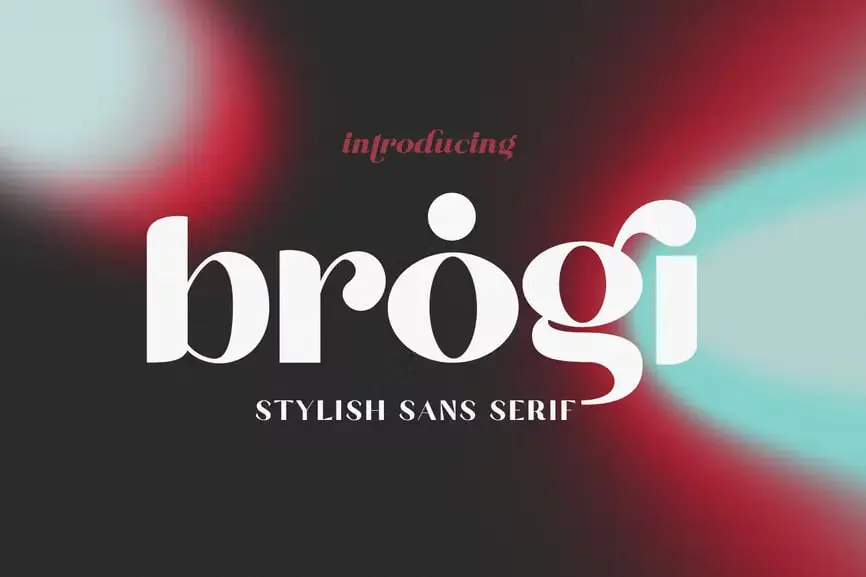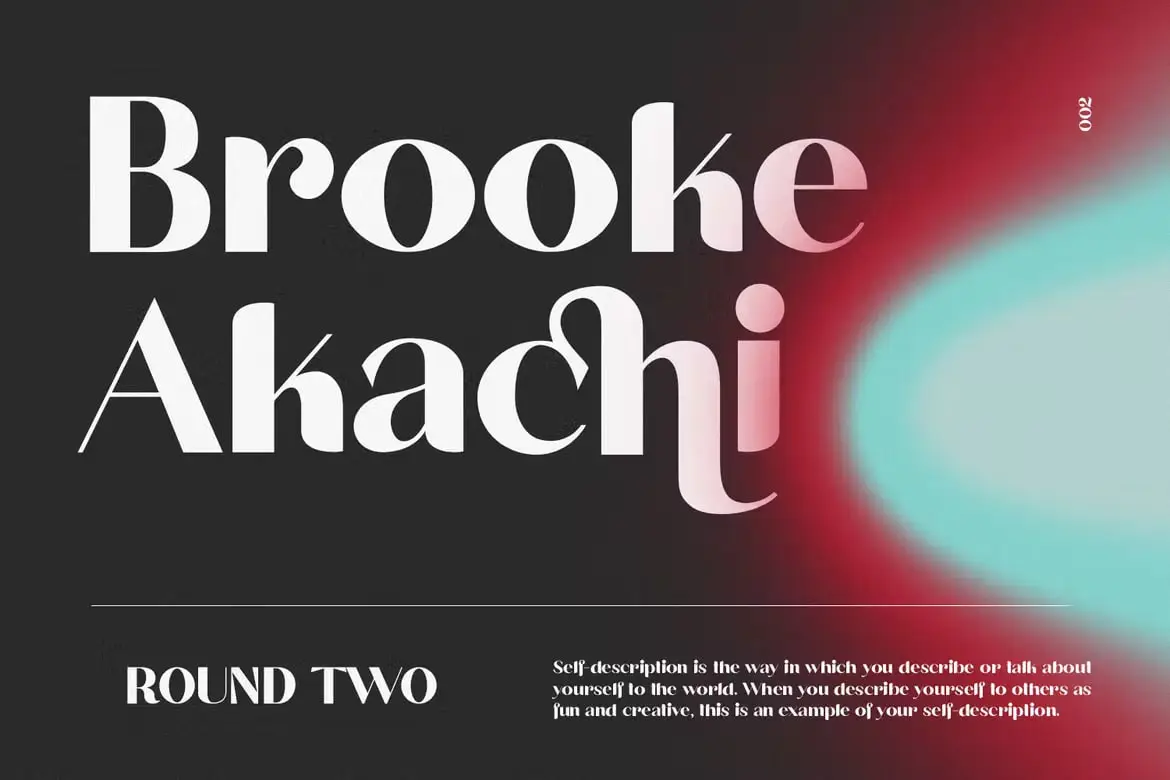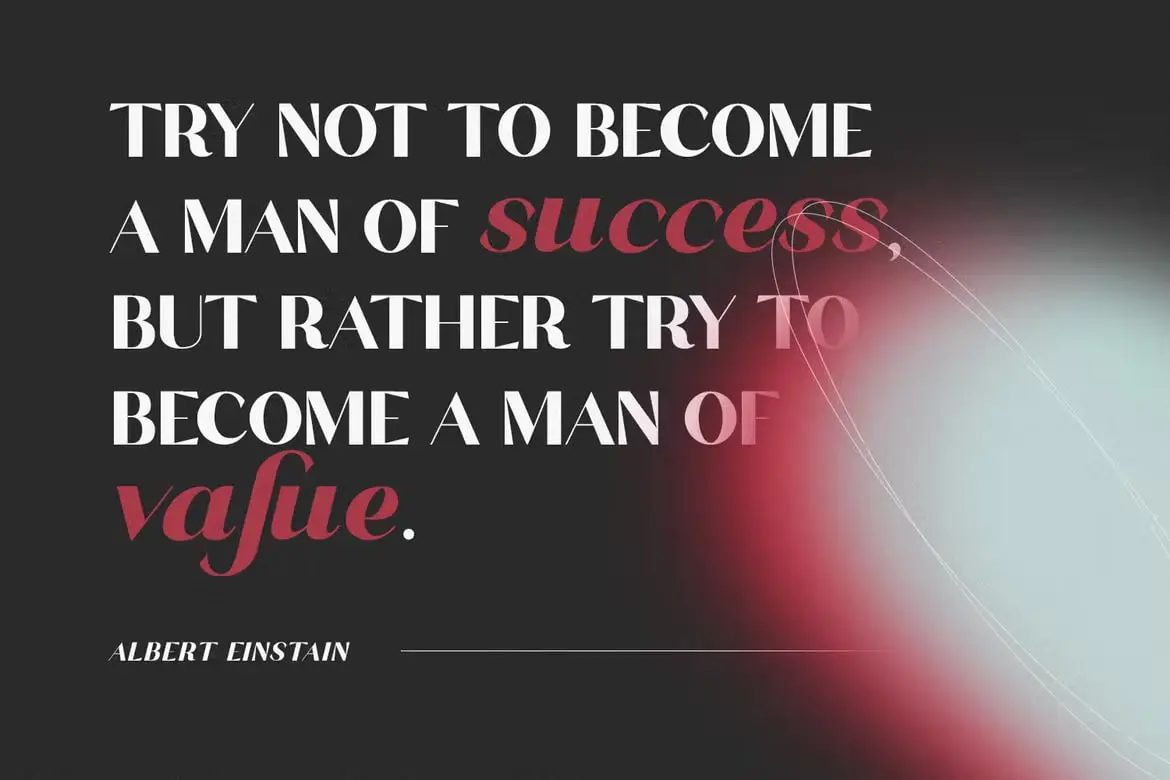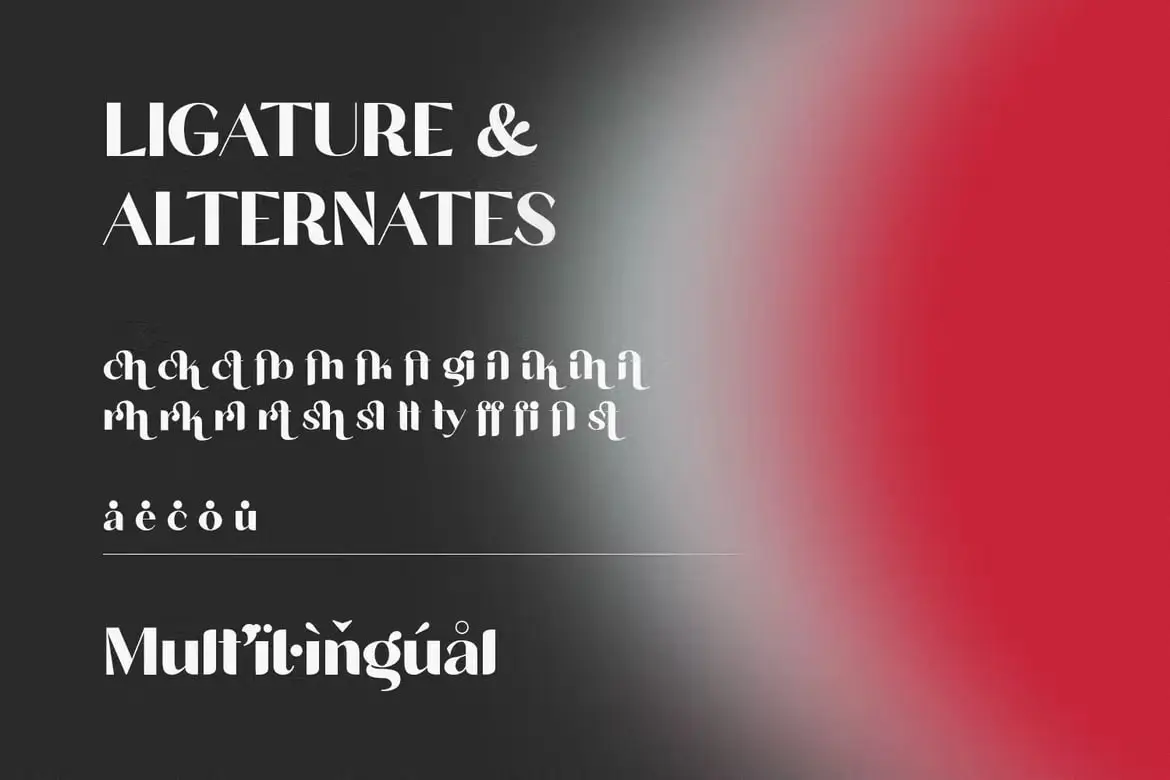
The Brogi Font is a versatile typeface designed for both digital and print applications. With its clean lines and modern aesthetic, it is perfect for a variety of projects, including branding, logos, and user interfaces.
- Multiple font weights for flexibility
- Stylish and contemporary design
- Supports a wide range of languages
- Styles: Regular, Bold, Italic
Ideal for creating eye-catching logos, elegant branding materials, and engaging web content. Ensure to pair with complementary fonts for a cohesive design.